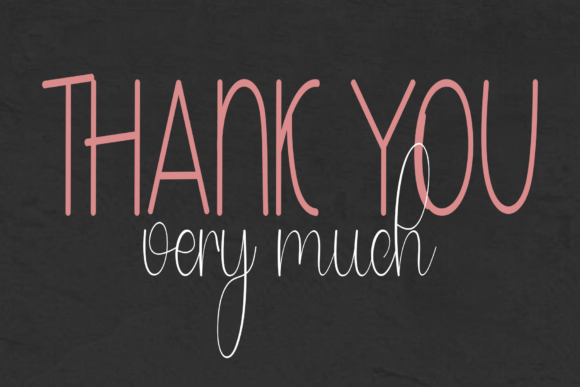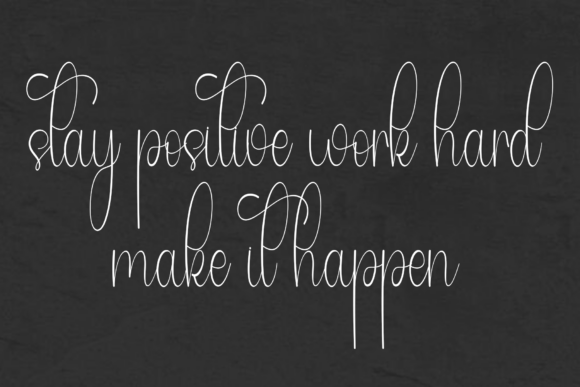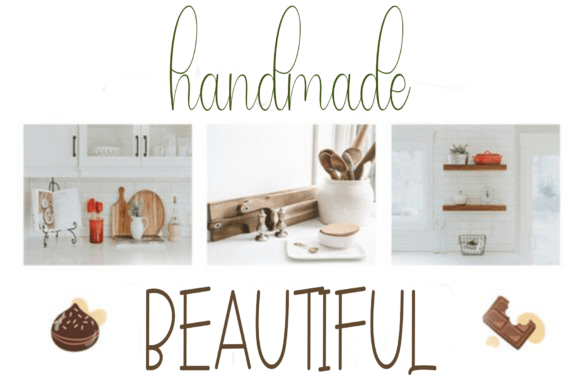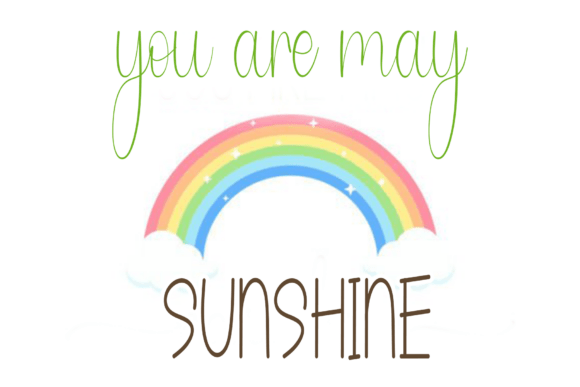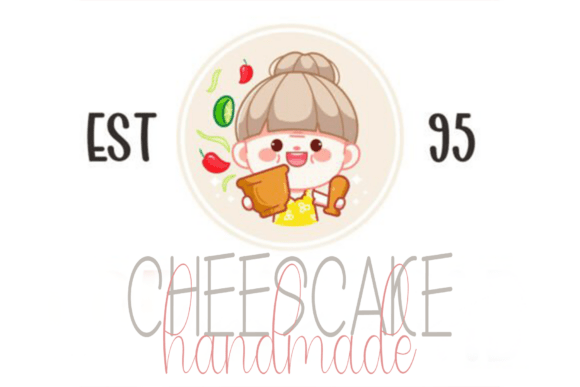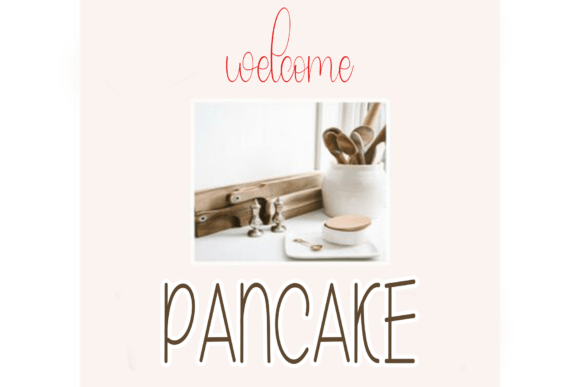
Discovering the Perfect Signature: A Designer’s Quest
Have you ever sat at your desk, pen in hand, trying to perfect that elusive signature? The one that screams ‘you’ without needing words? For designers, creating a distinctive and memorable signature is a challenge we all face. And sometimes, the perfect font can make all the difference.
Enter the Angel Book Signature Font, a delicate, monolinear script that captures the fluid motion of a fine-tip pen. This elegant font is specifically designed to add an airy, ethereal quality to your work, making it perfect for romance novel covers, wedding vellum overlays, and minimalist logo designs. Its clean, hand-printed companion font makes it the ultimate duo for “Bookstagram” watermarks and boutique lifestyle branding.
Angel Book Signature Font Key Features
- Font Style: Elegant script font with a touch of elegance and sophistication.
- Unique Characteristics: The font features a unique blend of cursive and handwritten styles, with subtle flourishes and swashes that add a touch of personality to any design.
Angel Book Signature Font Review
Overall, I’m really enjoying working with the Angel Book Signature Font. Here are a few things that stand out to me: ✨
- Unique aesthetic: This font has a beautiful, handwritten feel that’s perfect for adding a personal touch to designs.
- High-quality vectors: The font’s vector files are crisp and well-made, making it easy to resize and use in various design contexts.
- Wide character set: The font includes a wide range of characters, including international symbols and punctuation.
However, there are a few limitations to be aware of: ⚠️
- Some character inconsistencies: I’ve noticed a few instances where certain characters don’t quite match the overall aesthetic of the font.
- Limited font weights: The font only comes in a few weights, which might limit its use in certain design scenarios.
Overall, I’d say the Angel Book Signature Font is a solid choice for designers looking to add a touch of elegance to their projects. While it’s not perfect, its unique aesthetic and high-quality vectors make it a great addition to any design toolkit.
Tips for Getting the Most Out of the Angel Book Signature Font
Use the Angel Book Signature Font to create elegant and sophisticated designs. Experiment with different font sizes and styles to add depth and visual interest to your design.